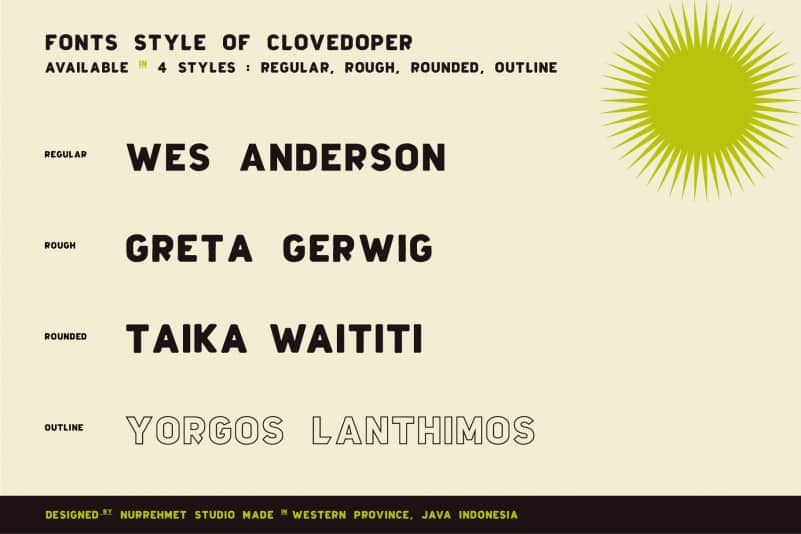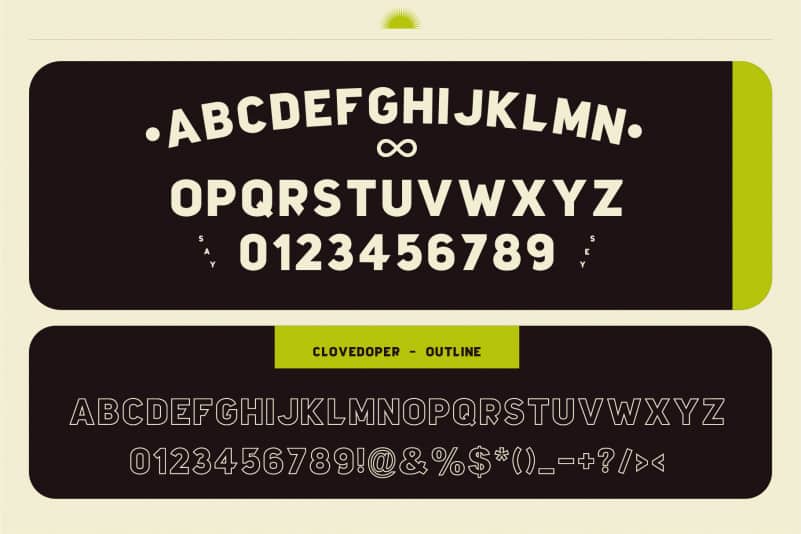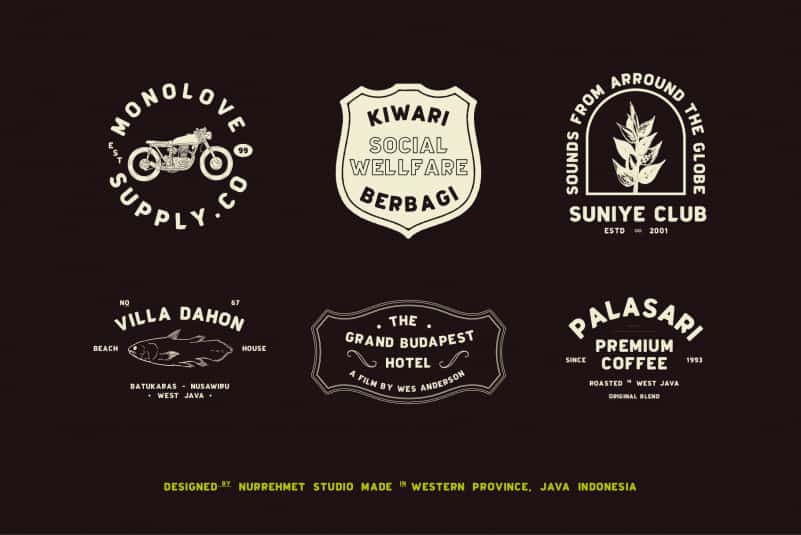
Clovedoper Font
Clovedoper Display Font is a new mix of font and template + badge packages with a modern style. This font is perfect with motorbike person or motorcycle club and custom garage business. Suitable for logo, t-shirt, print, business cards, branding materials, nature photography, etc, made with carefully crafted.